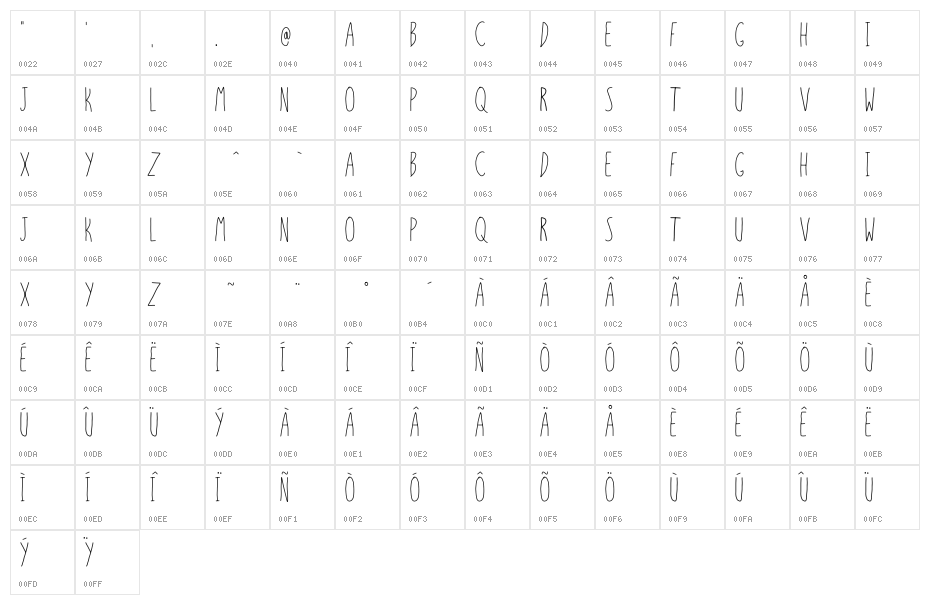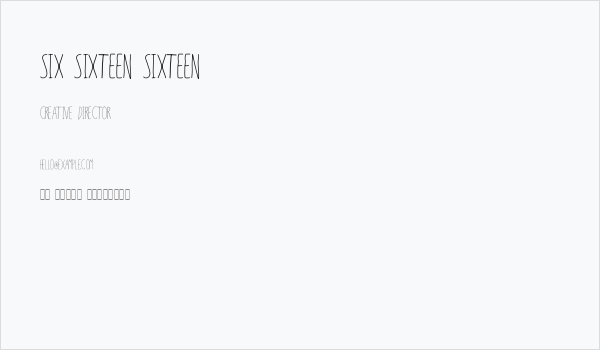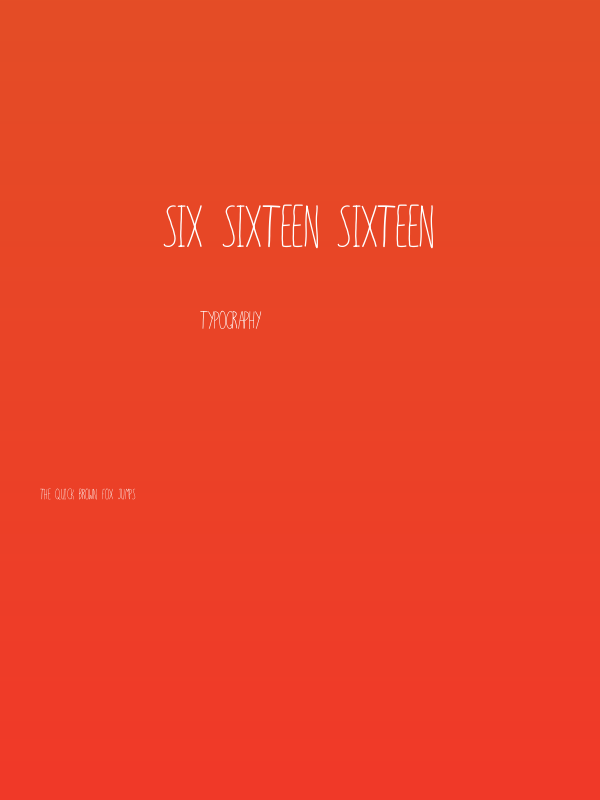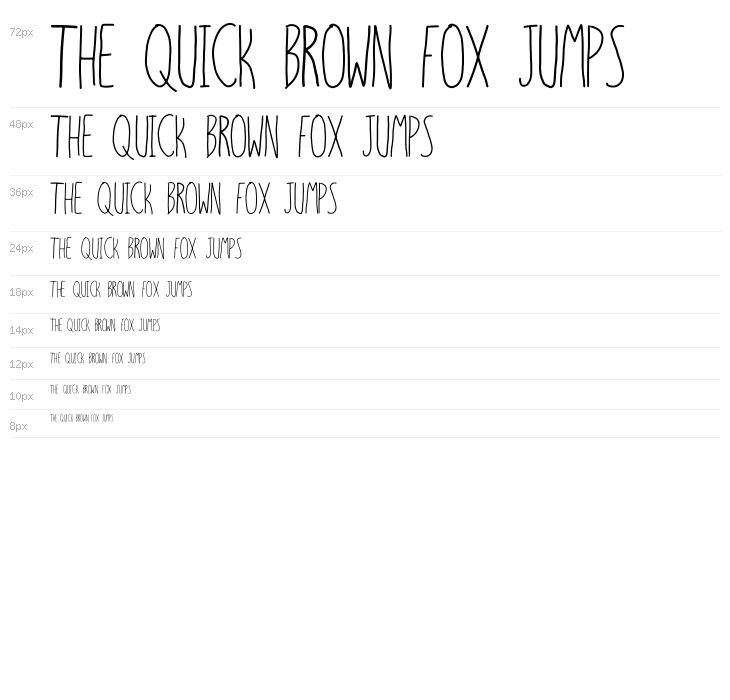
SIX SIXTEEN Font
SIX SIXTEEN Description
This font features a unique, hand-drawn aesthetic with tall, narrow characters that give it a whimsical and artistic feel. The uppercase letters are elongated with slight variations in stroke width, adding a touch of playfulness. The lowercase letters maintain the same narrow structure, creating a cohesive look across the alphabet. The numbers and special characters follow the same style, ensuring consistency throughout. This font's distinctive style makes it stand out, perfect for creative projects that require a personal touch.
| Proposed Projects | Ideal for greeting cards, artistic posters, children's book illustrations, and creative branding projects. |